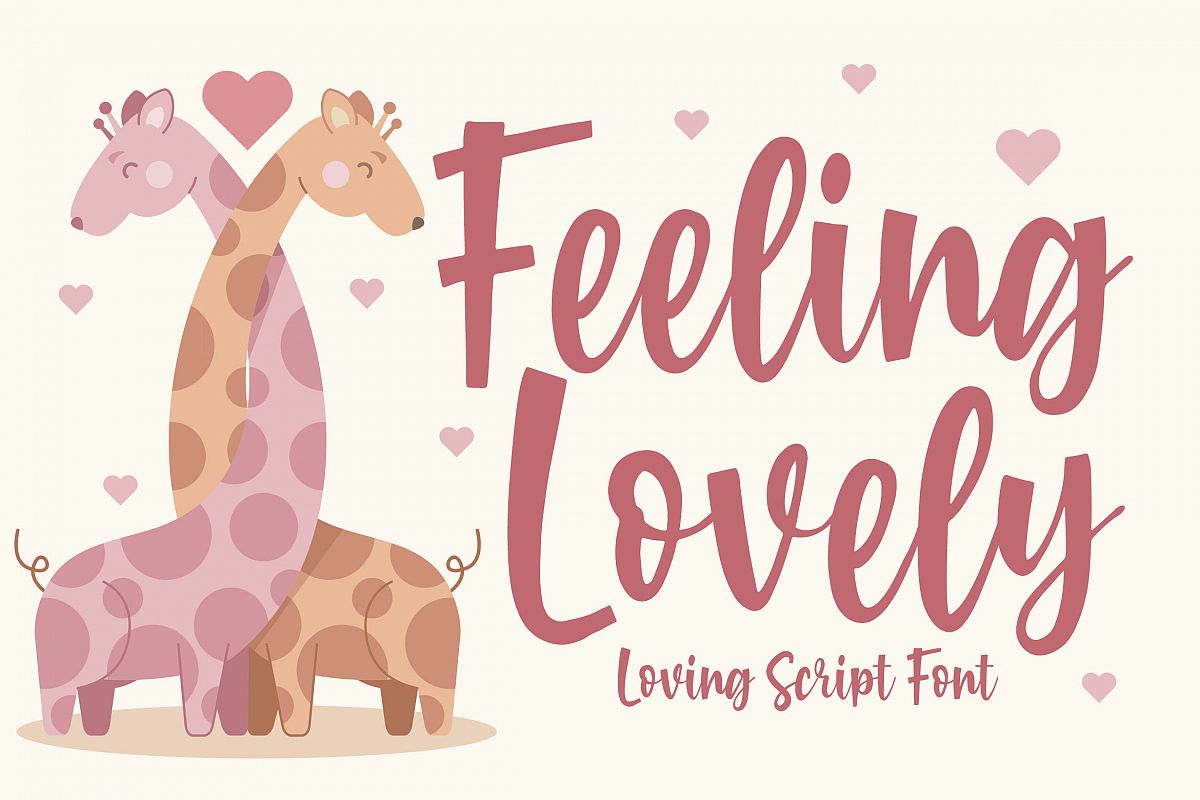
Feeling Lovely - Loving Script Font
Introducing of our new product the name is Feeling Lovely Loving Script Font. Feeling Lovely inspired by modern calligraphy this font is a fun theme very good for food logo, food menu, wedding invitation, logotype and etc